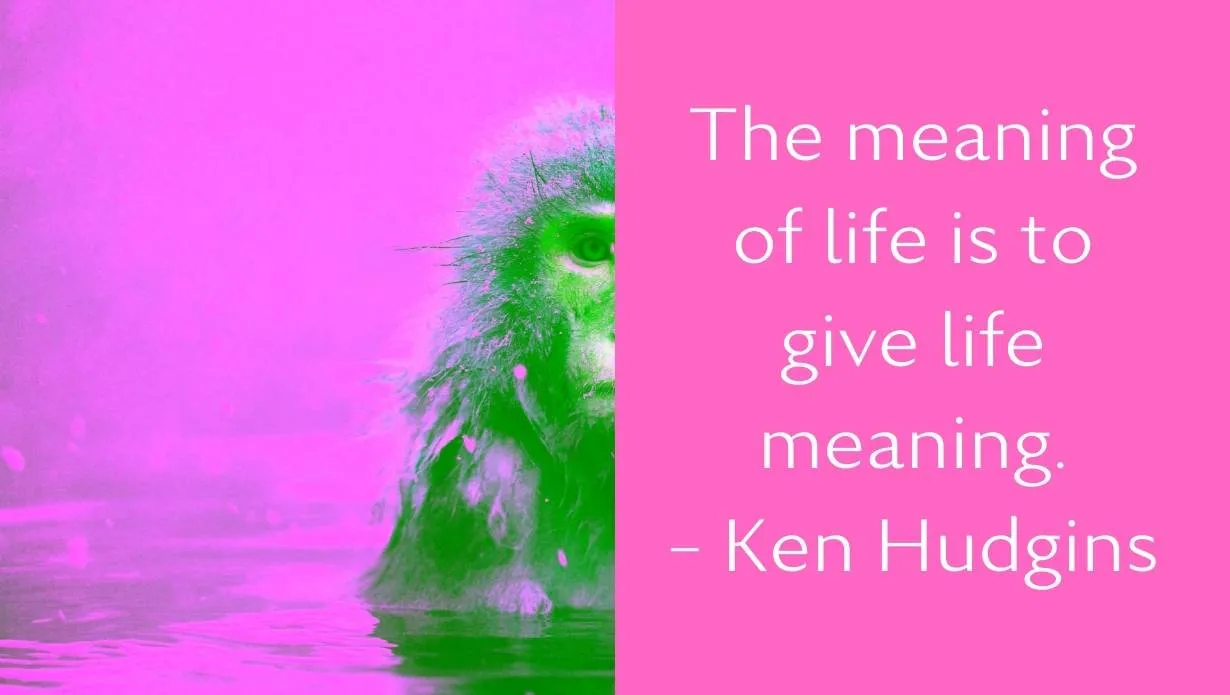
Excentra Font is a geometric sans-serif typeface designed by Andriy Konstantynov. It was released through Flat-it co., Ltd in 2013.
It is available in six weights, with accompanying italics. Each weight has over 1,000 glyphs, including extensive language support.
This cute typeface is perfect for display, headline, and logo text. It is suitable for Excel, MS Word, and Canva. The Light Font is alternative to this typeface and works in the same manner.